setting monospaced font on Emacs?
You could always use the monaco font:
Tell emacs to use the Monaco font. Add this line to your
~/.emacs:(set-default-font "monaco")Personally, I prefer it a little smaller than it appears with the default setting above, so I use
See this page on Emacs Wiki: SetFonts. It has everything you need to know about displaying installed fonts to choose from and choosing one for Emacs.
user46976 10 monthsI used to use liberation mono font on emacs (on X11) on an Ubuntu system using the following command and it worked great:
Our system admin upgraded to a new release of Ubuntu and now the font looks completely different in emacs. It doesn't look anti-aliased anymore, appears "less bold" and looks like this:
I'm trying to get it to look like it did before. Basically I want a font appearance that looks as close as possible to the Monaco fixed width font on Mac OS X, which on my terminal looks like this:
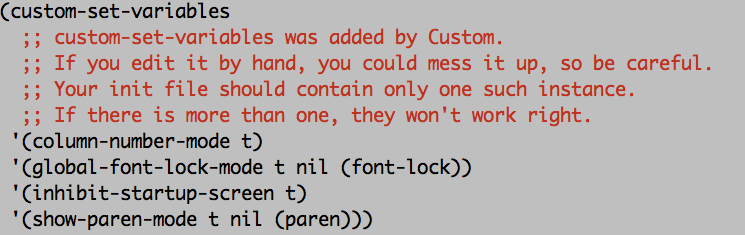
user46976 over 10 yearsthanks but on second thought I'm not sure the original font I am aiming to use was Liberation Mono. It could be that the system defaulted to monospace or whatever the default system font, which emacs does. I'm just trying to achieve the exact same font as the screen shot above. Do you know which font it is? -
qmega over 10 yearsI guess it could have been DejaVu Sans Mono; that's a pretty common default mono font for Linux distros. The screenshot you have up there really looks like Liberation Mono, though. If you have access to an environment where it works as before, you can useM-x describe-fontto find out for sure. There are other problems it could be, though. Perhaps the font you had isn't installed by default anymore; there's a good chance this upgrade was from 10.04 LTS to 12.04 LTS, and the former is one release before the new Ubuntu fonts were added. (I don't use Ubuntu, so not entirely sure on this info.) -
qmega over 10 yearsIf what you really want is Monaco, is there any reason you can't just copy that from your OS X box and install it user-local on this system? -